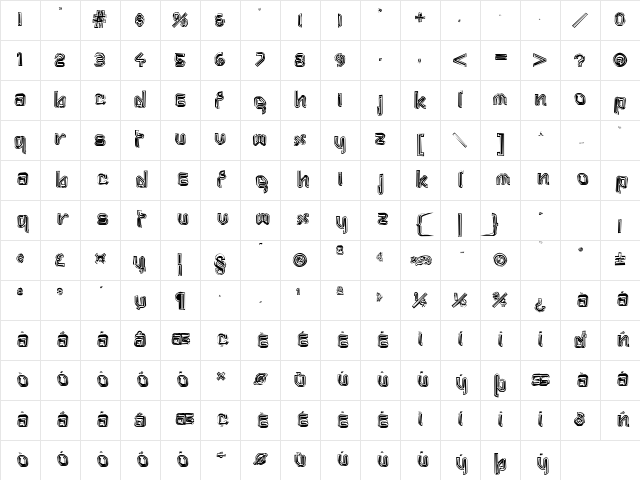
Aftermath normal
Style: normal
Version: mutated 1997
Design Context for Aftermath
Aftermath is a composed and adaptable typeface that performs quietly and consistently across a wide range of design contexts.